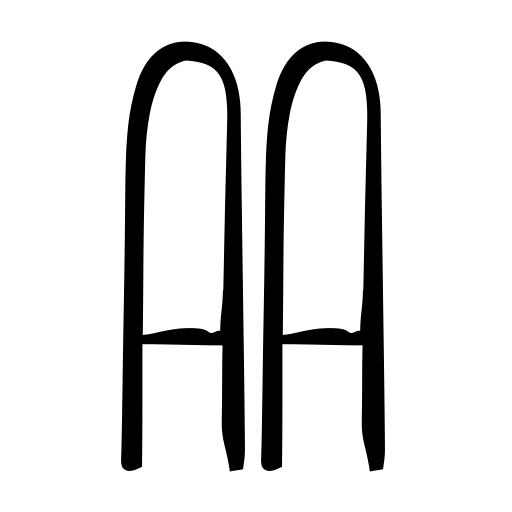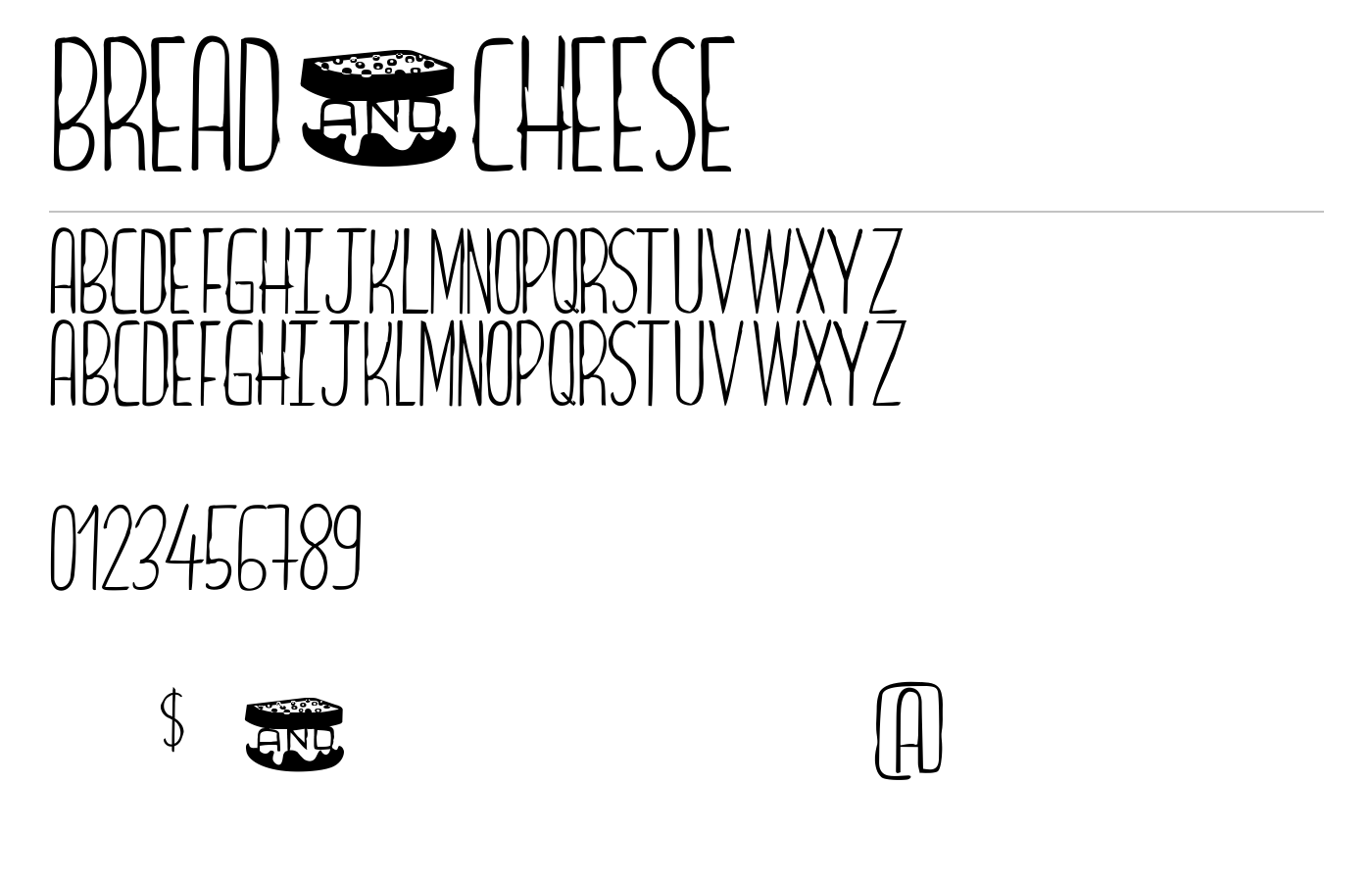
Bread&Cheese is a tall, narrow sans serif font with a quirky, hand-drawn feel. Its thin strokes and uneven lines give it a casual, playful personality, making it ideal for creative branding, fun headlines, and unique logos. This font works well where a friendly, approachable, and modern look is desired.
Bread&Cheese Font
About Bread&Cheese Font
| Font family | Bread&Cheese Font |
| Designer | C.T.B |